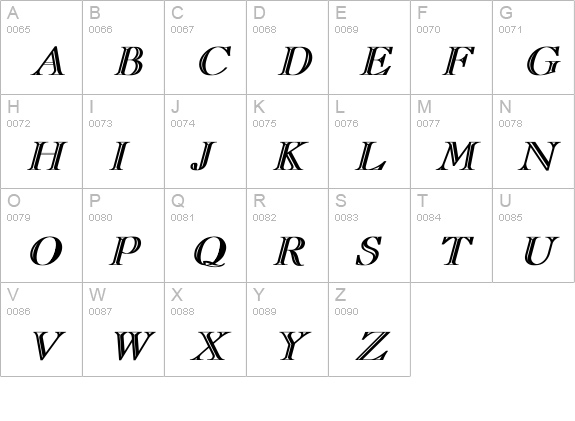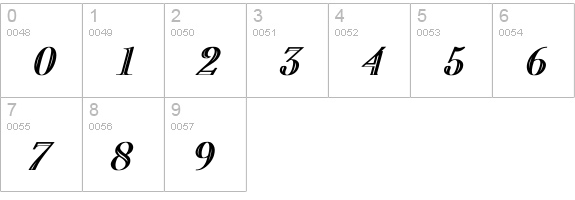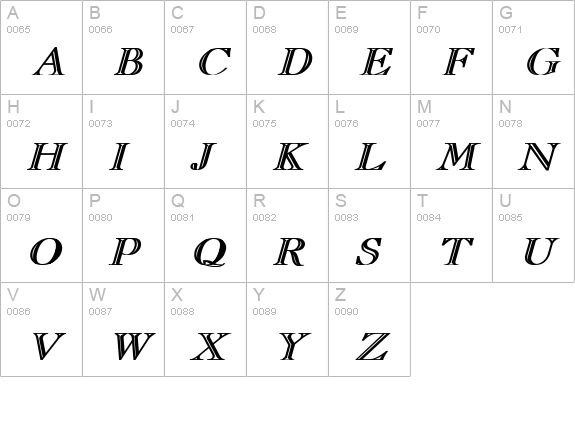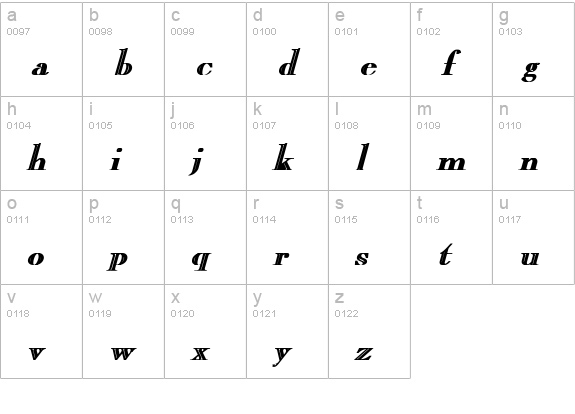
CaslonOpenFace Bold Italic Font Details
CaslonOpenFace Bold Italic is a strong, high-contrast, italic variant in the CaslonOpenFace typeface family \xE2\x80\x94 well suited to headlines, attention-grabbing titles, and strong calls-to-action.
CaslonOpenFace Bold Italic font is a striking and elegant typeface that exudes sophistication and charm. Its bold and italic design adds a touch of flair and personality to any project, making it perfect for headlines, titles, and special text emphasis. The classic CaslonOpenFace style combined with the bold italic variation creates a unique and eye-catching look that is sure to capture attention. What sets CaslonOpenFace Bold Italic font apart is its versatility and timeless appeal. Whether used in print or digital designs, this font commands attention and adds a touch of elegance to any visual presentation. Its bold strokes and slanted italics create a sense of movement and energy, making it ideal for conveying a sense of importance or urgency. And the best part? CaslonOpenFace Bold Italic font is free for personal and commercial use! You can easily download this stunning font at FontsMarket.com and start using it in your projects right away. Don't miss out on this fantastic opportunity to enhance your designs with the beauty and sophistication of CaslonOpenFace Bold Italic font.